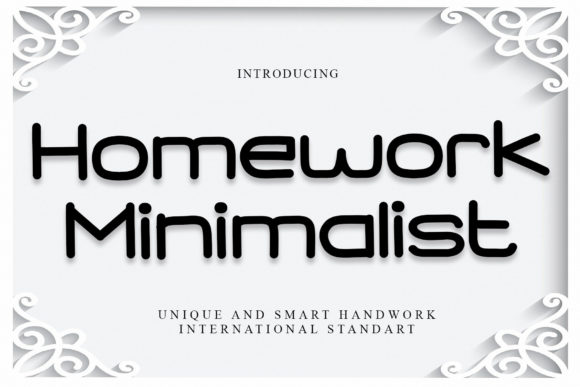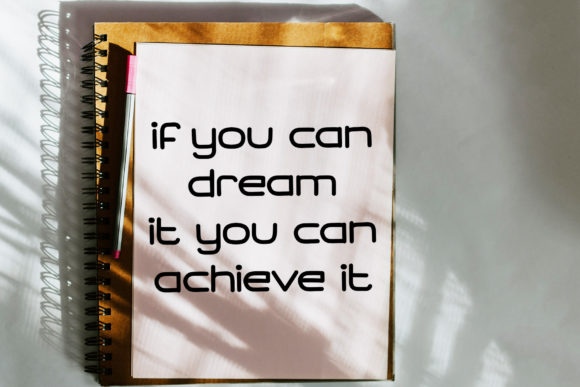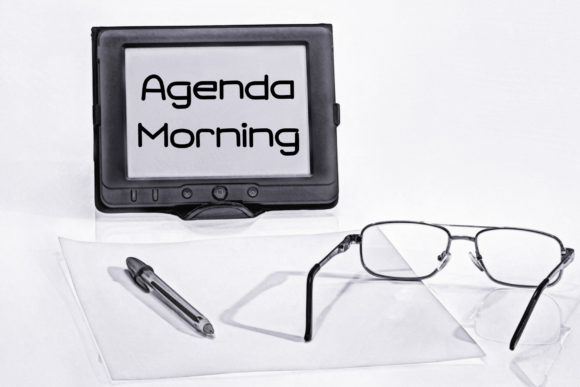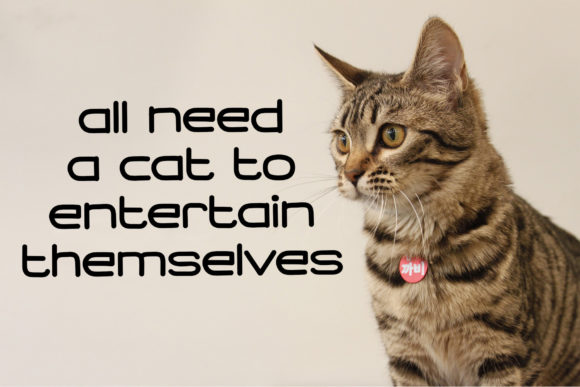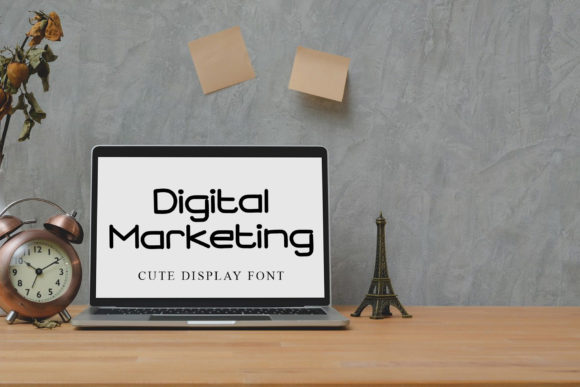
Homework Minimalist Font
About Homework Minimalist Font
Homework Minimalist is a unique and elegant script font. Its natural and unique style makes it incredibly fitting to a large pool of designs. The only limit is your imagination!